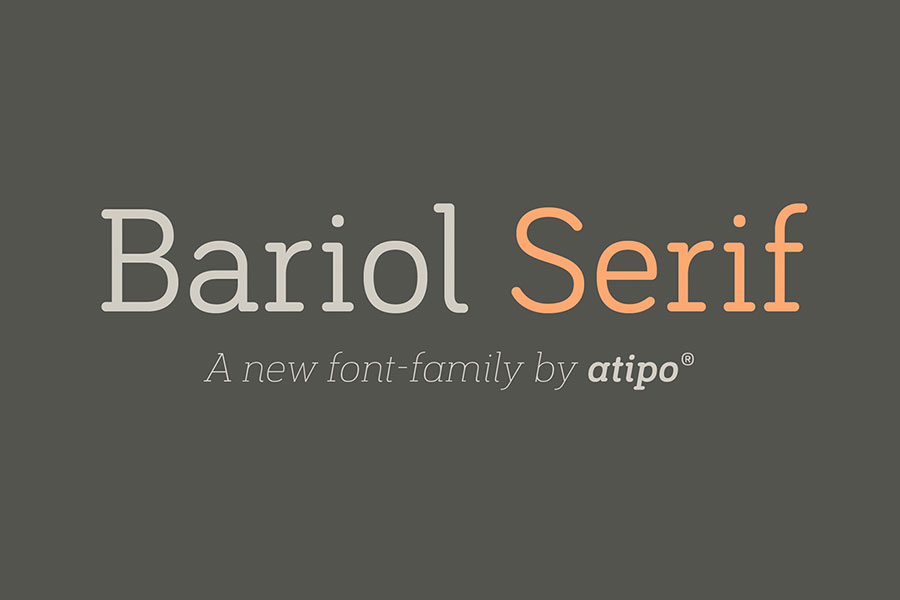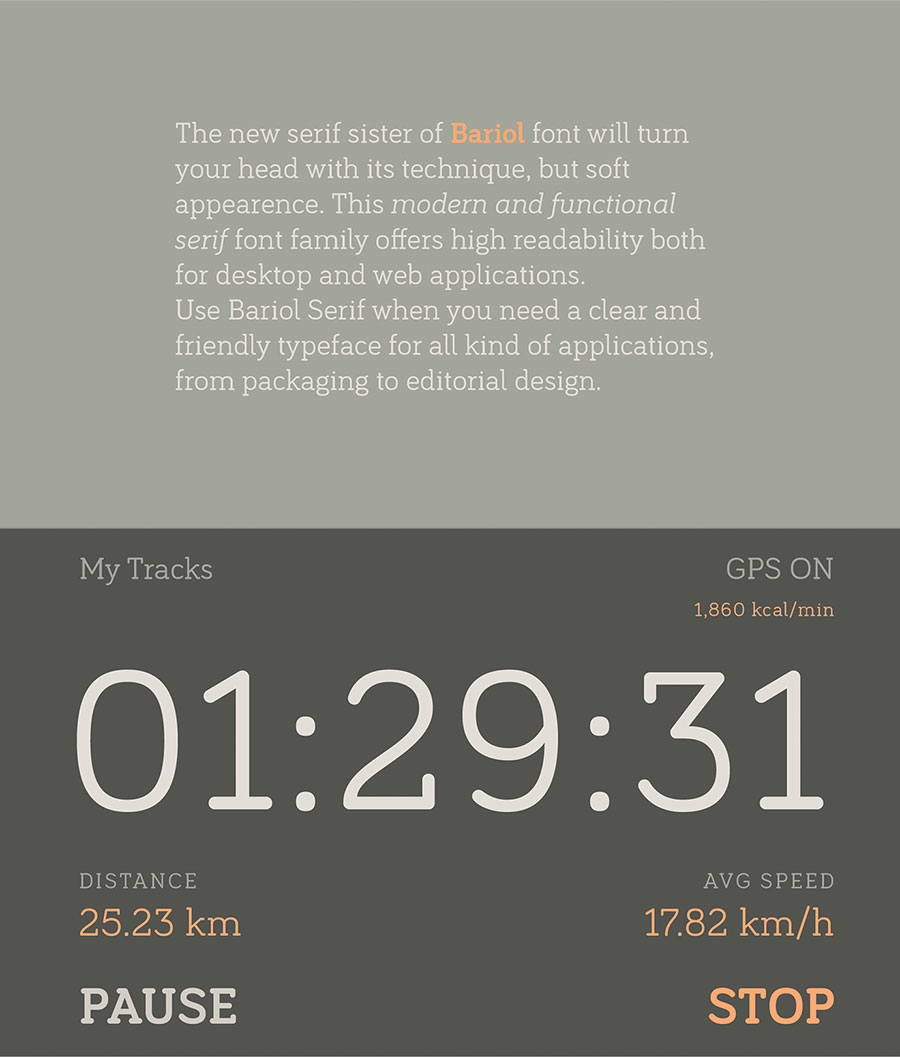
Bariol serif is the serif version of “Bariol” font. This well designed font retained the font style of its sans serif brother, and also comes with 4 weights and italics. You can pay what you want to get the full family, or share on social media to get the Regular and Italic version of the font for free.